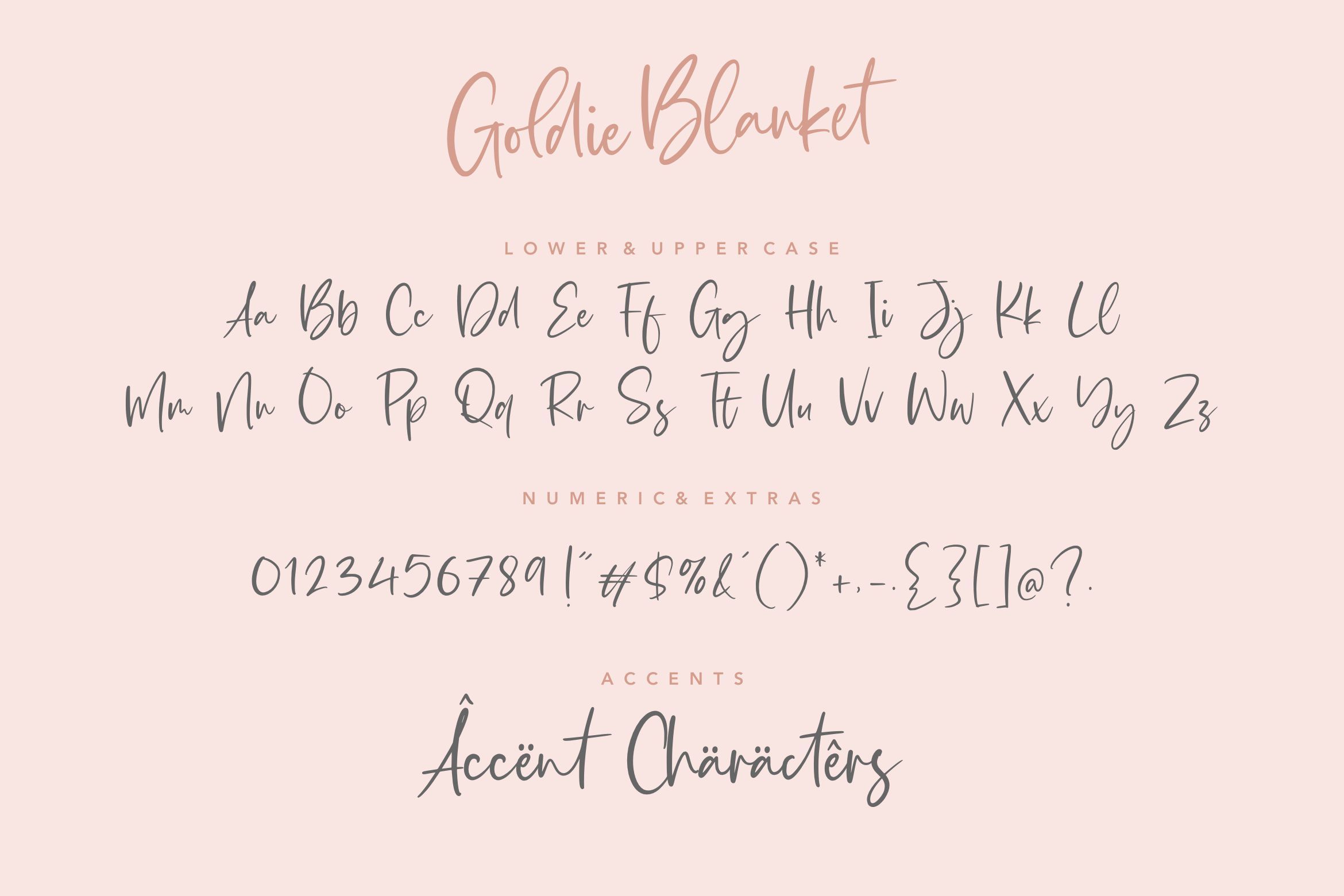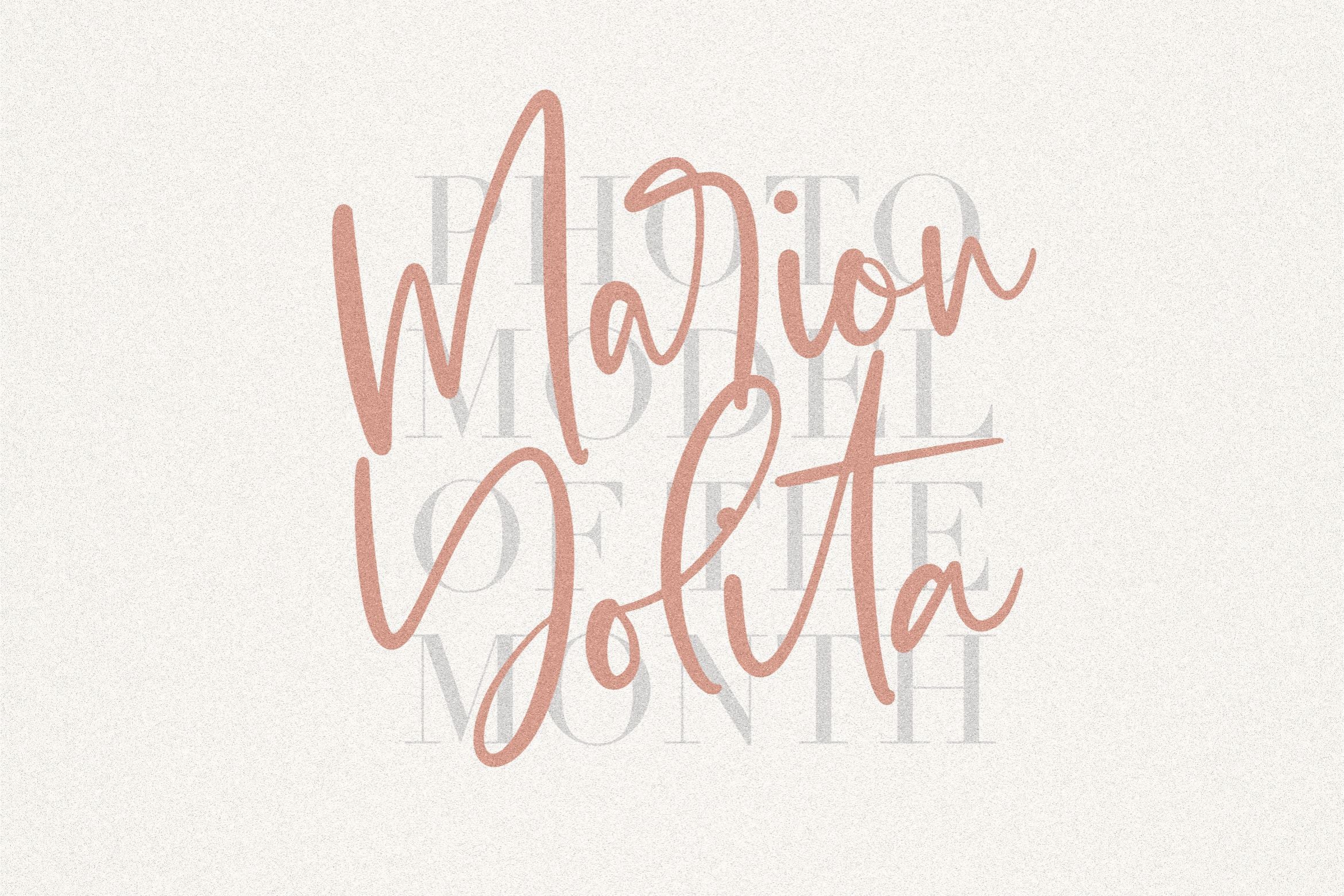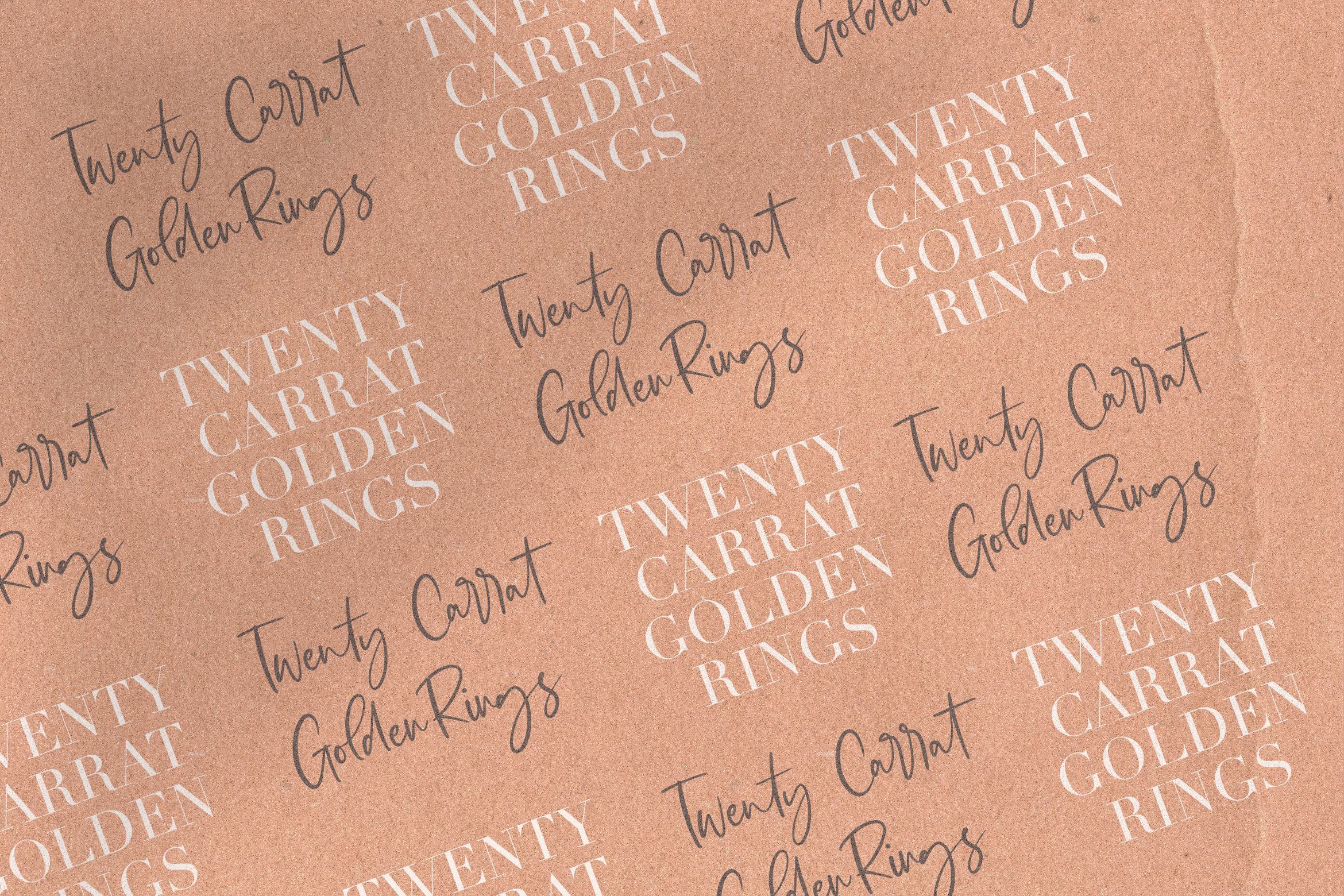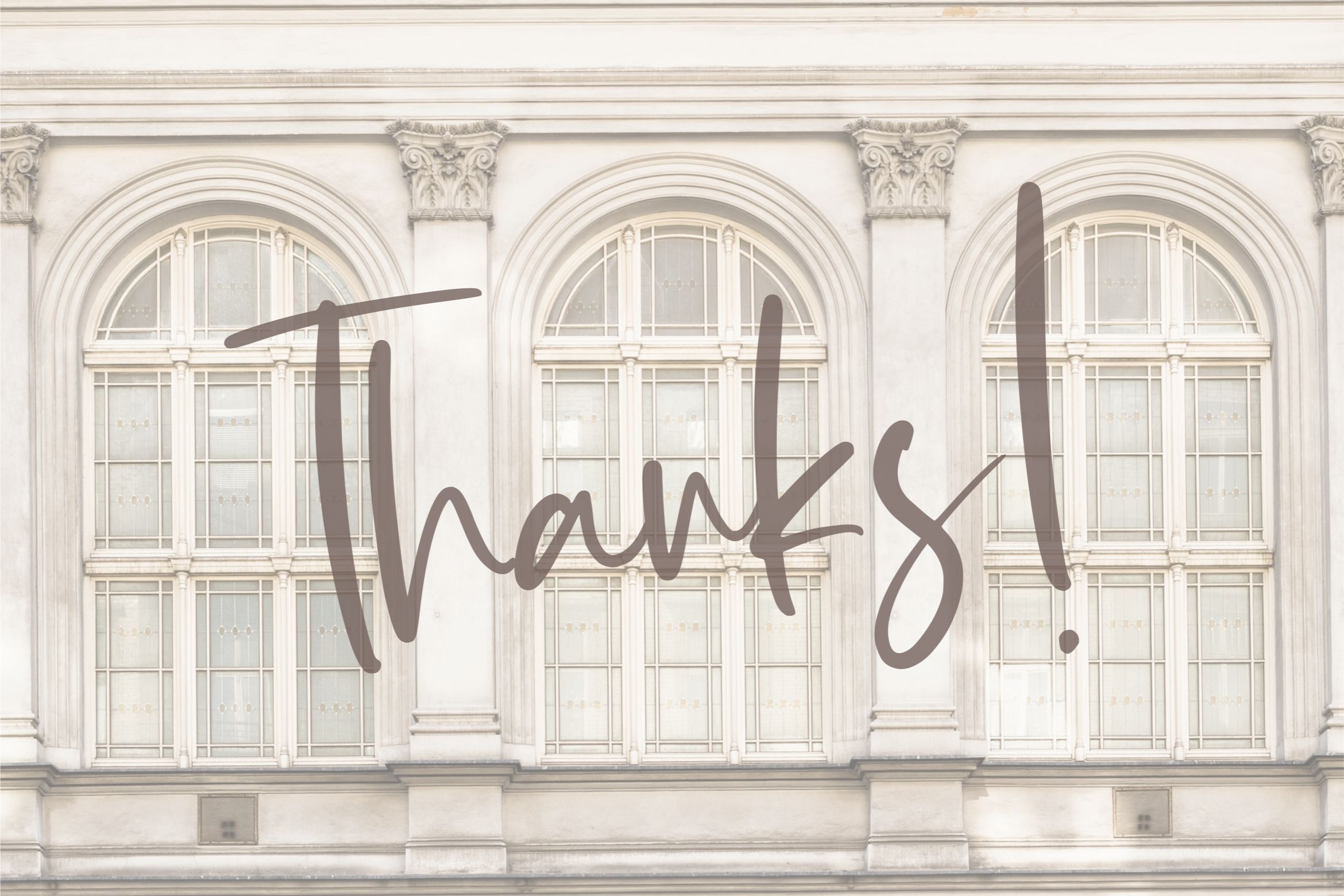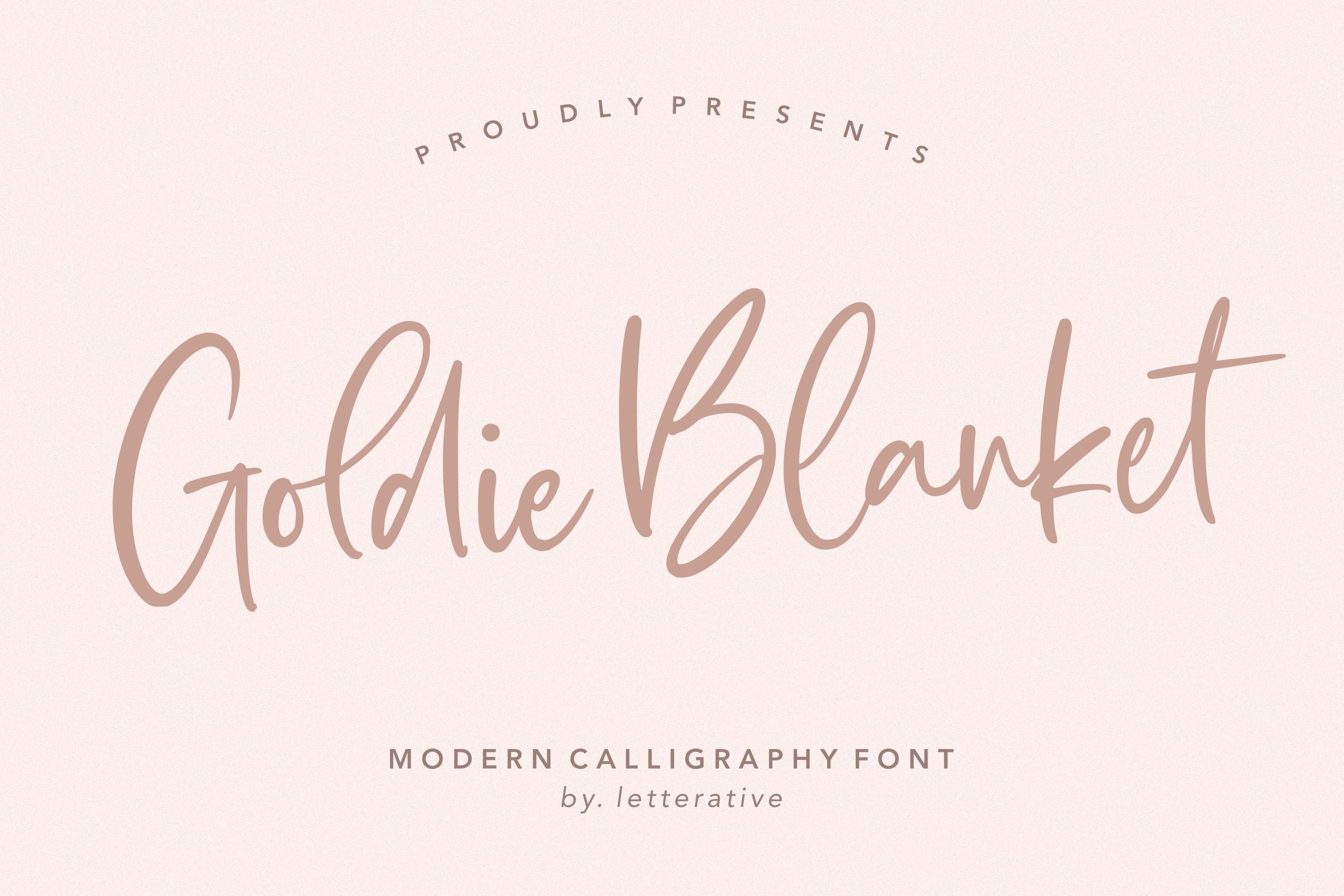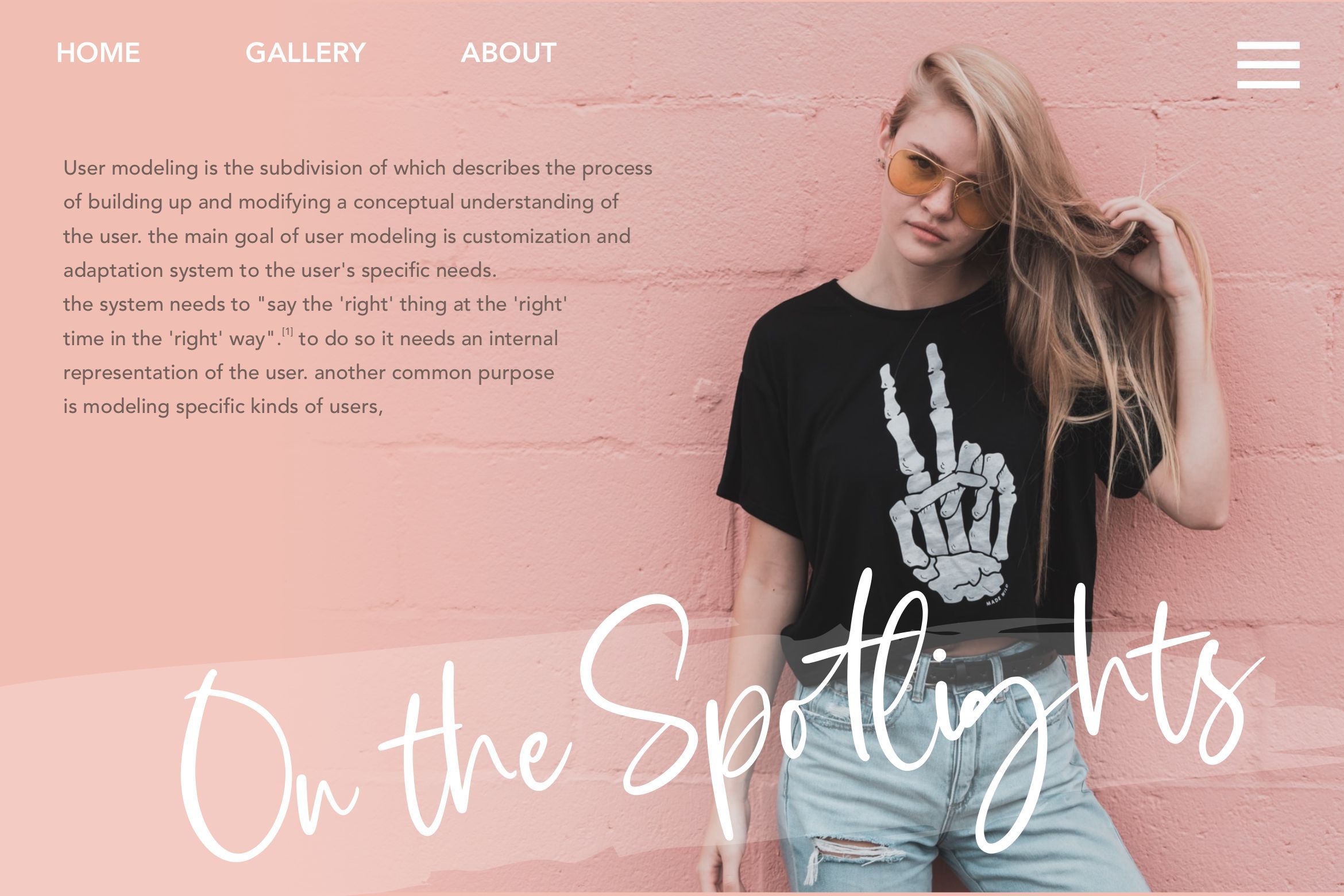
Goldie Blanket Modern Calligraphy Font
Introducing by Letterative Studio : Goldie Blanket Font Goldie Blanket is a Modern Calligraphy Font Goldie Blanket is a delicate and elegant handwritten font. Its distinct and well rounded letters make this font a masterpiece. Fall in love with its incredibly versatile style and use it to create spectacular designs! This font is PUA encoded which means you can access all of the glyphs and swashes with ease! This font includes : TTF and OTF Goldie Blanket also multilingual support Enjoy the font! Feel free to comment or feedback Send me PM or email Thank you!